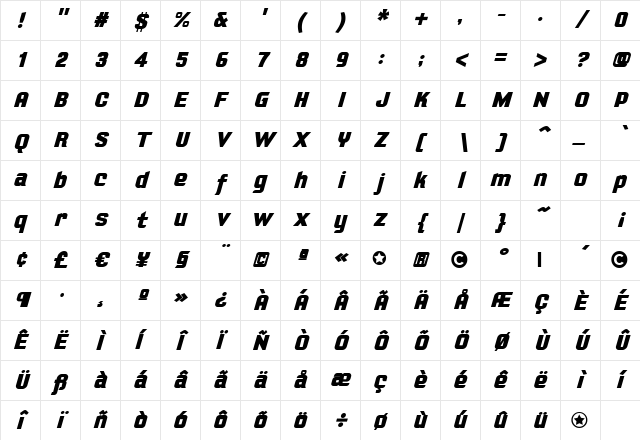
Yearling ExtraBoldOblique Free Font
Yearling ExtraBoldOblique
Style: ExtraBoldOblique
Design Context for Yearling
Yearling is a composed and adaptable typeface that performs quietly and consistently across a wide range of design contexts. The slanted form adds forward momentum and visual energy. Its bold stroke weight gives it real presence on the page.
Pro Tip: Use Yearling for emphasis, pull quotes, and subheadings where its slanted energy can add rhythm to the layout.